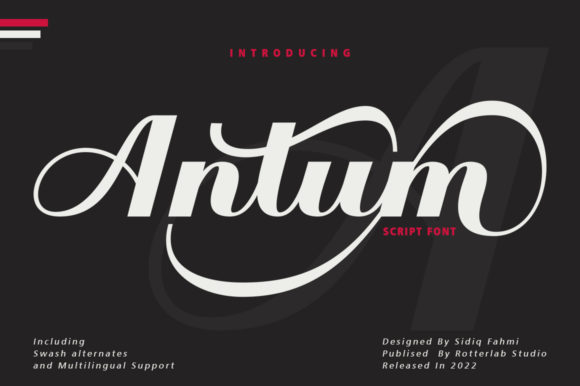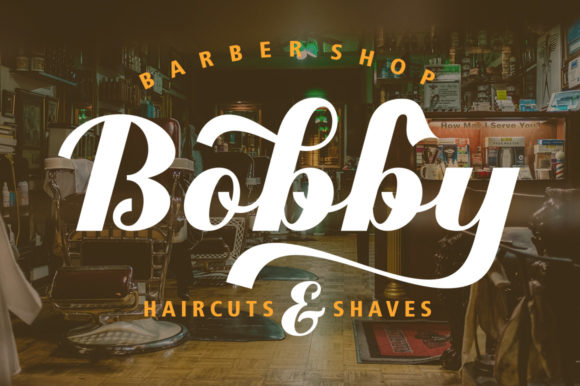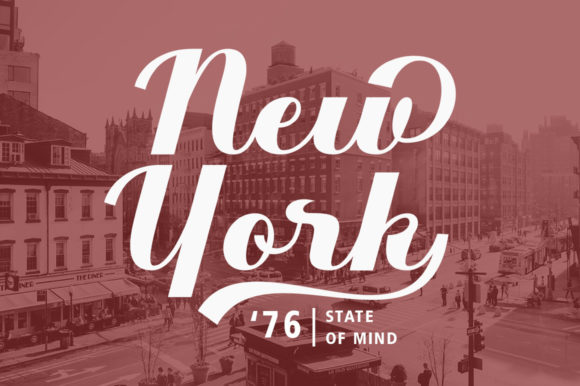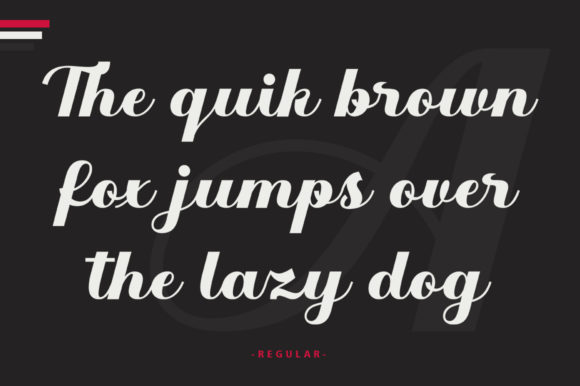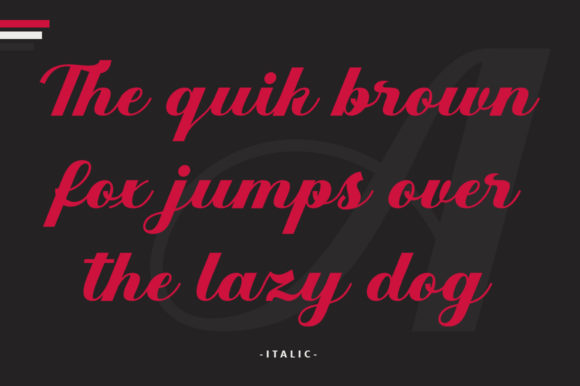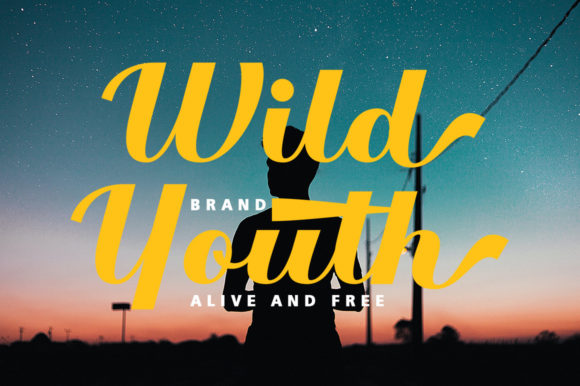
Antum Font
About Antum Font
Antum is a vintage bold script font that is heavily inspired by a lovely style.
All characters have imperfect shapes which give a natural look in the design. This font is PUA encoded which means you can access all glyphs and swashes with ease!